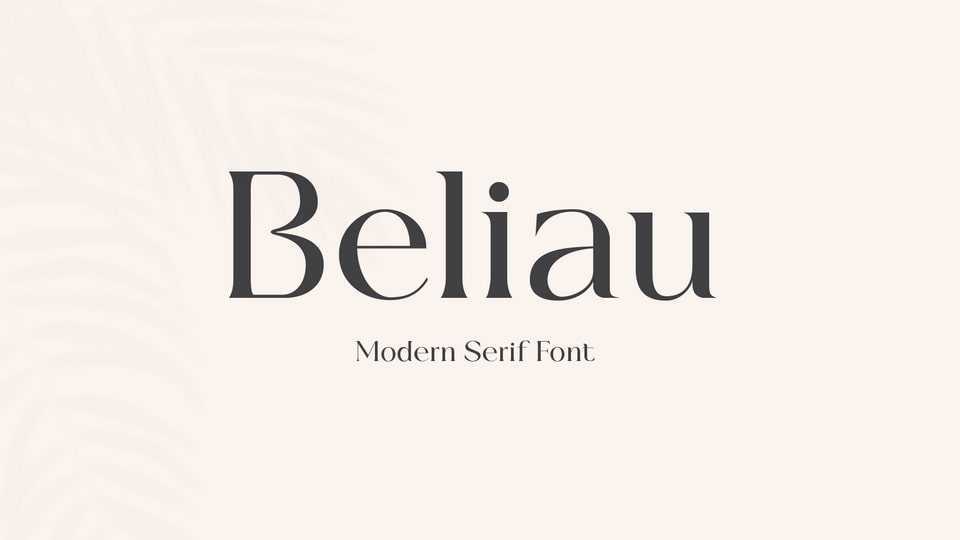
Download Beliau font, a modern serif typeface that has been expressly designed for high-resolution displays and print media.
Designer: Yukita Creative